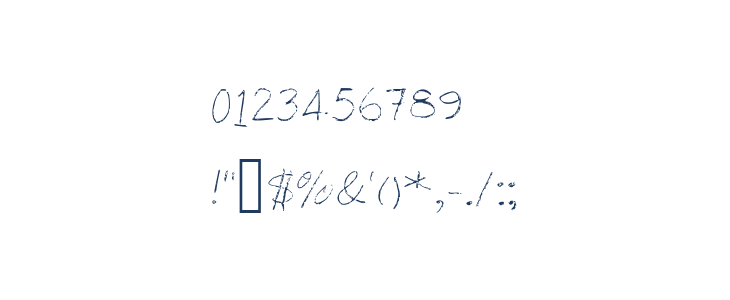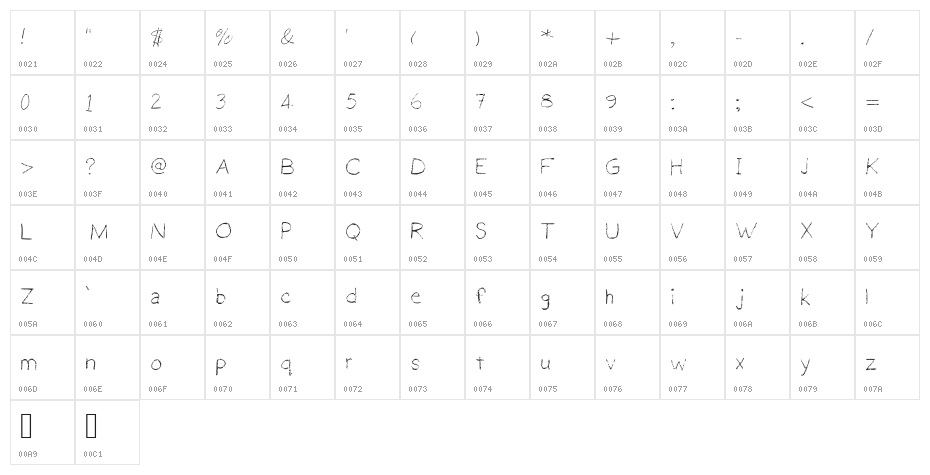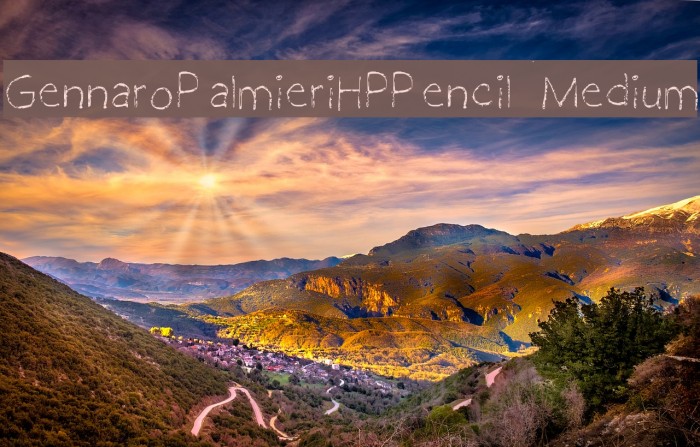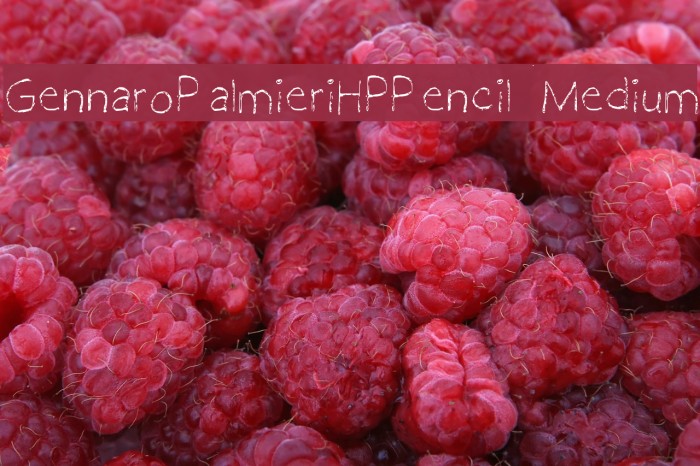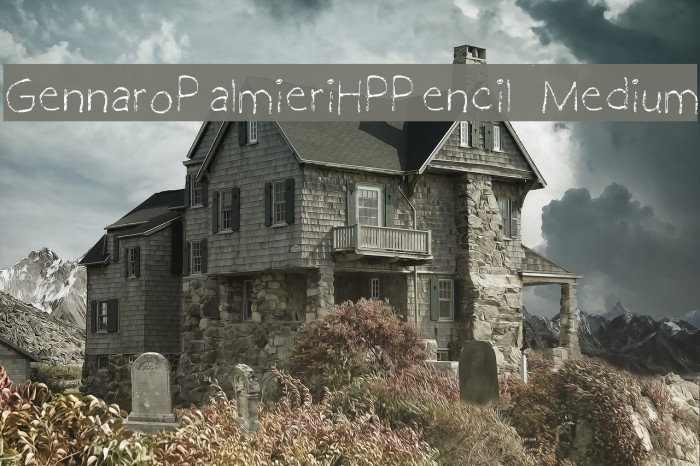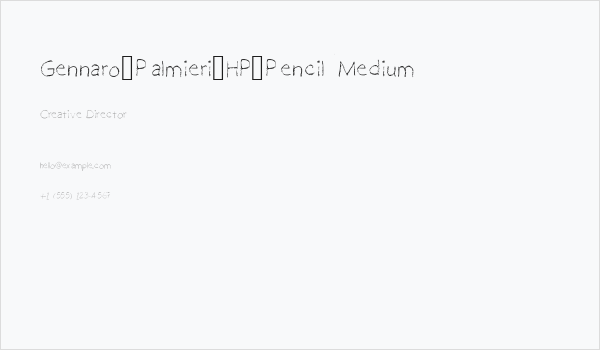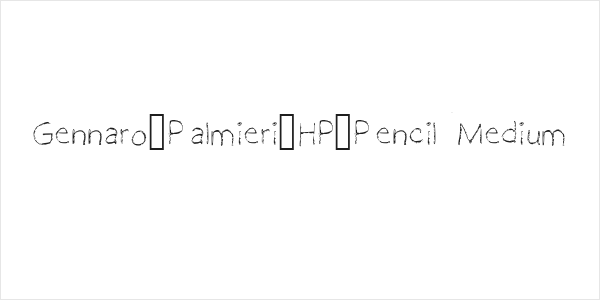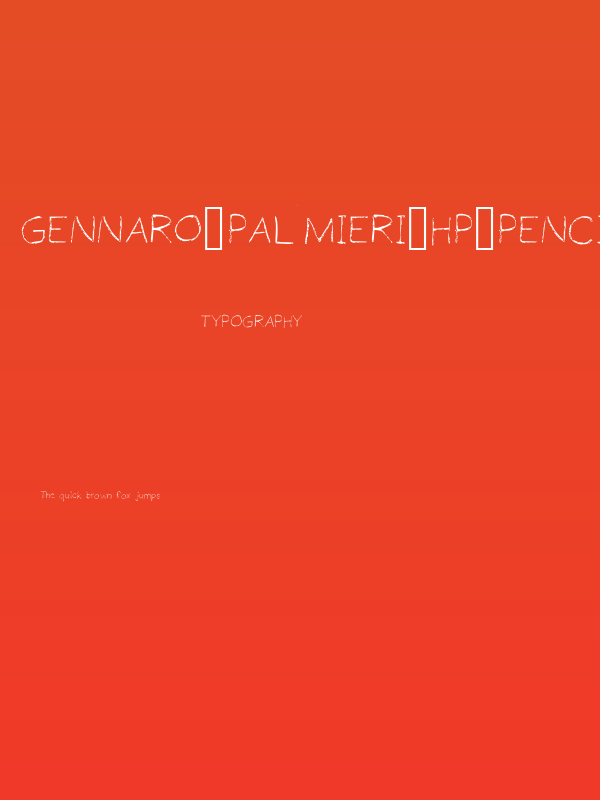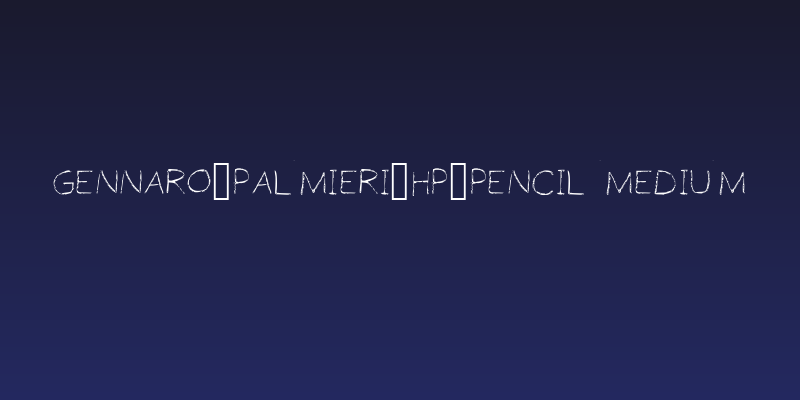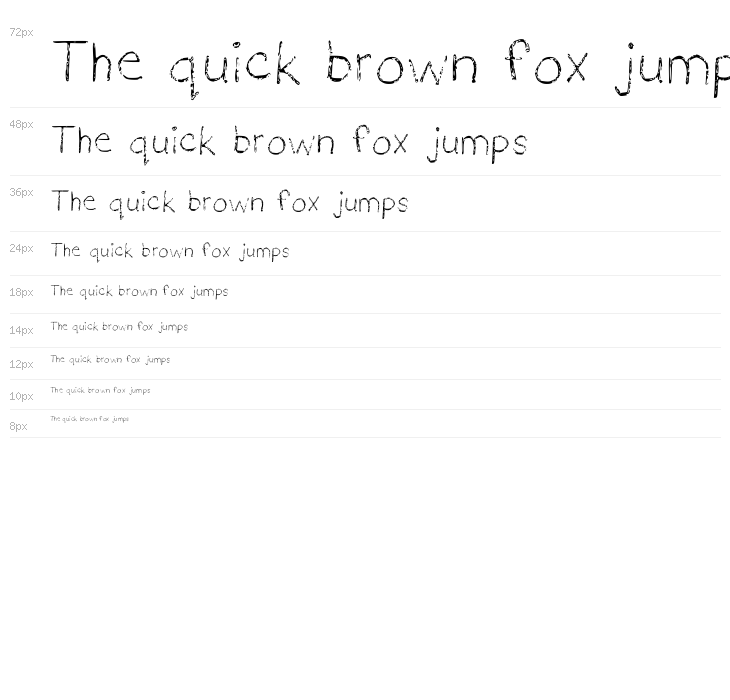
Gennaro_Palmieri_HP_Pencil Medium Font
Gennaro_Palmieri_HP_Pencil Medium Description
This font features a hand-drawn, sketch-like appearance reminiscent of pencil writing. The characters have an irregular, textured quality that mimics the natural imperfections of pencil strokes on paper. Uppercase and lowercase letters maintain a consistent style, with slightly varied line thickness that adds to the authentic, handcrafted feel. The numerals and special characters follow the same aesthetic, ensuring a cohesive look across all glyphs. This font is ideal for projects that require a personal, artistic touch, such as invitations, greeting cards, or creative branding. Its unique style makes it stand out in both digital and print media, offering a distinctive alternative to more conventional typefaces.
| Overall Style | Artistic, Handcrafted |
| Use Case | Headlines, Creative projects, Artistic branding |
| Proposed Projects | Ideal for artistic projects, invitations, greeting cards, and creative branding. |